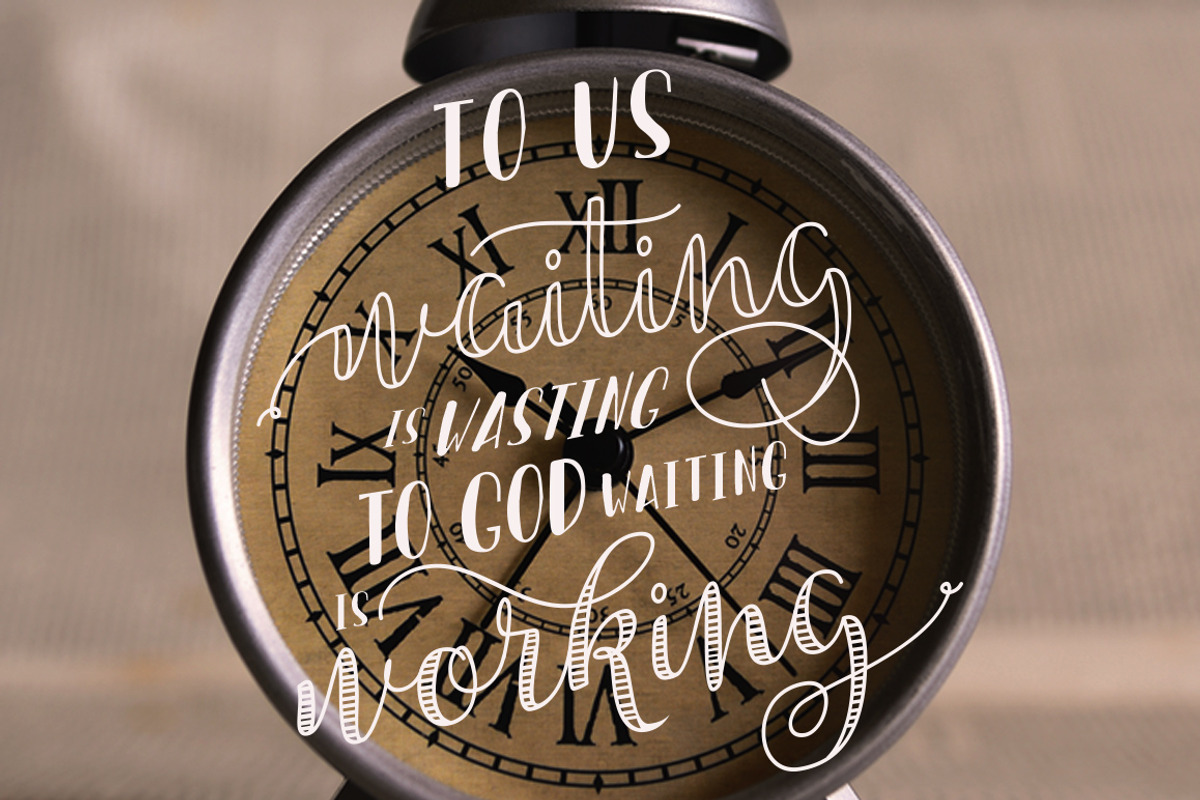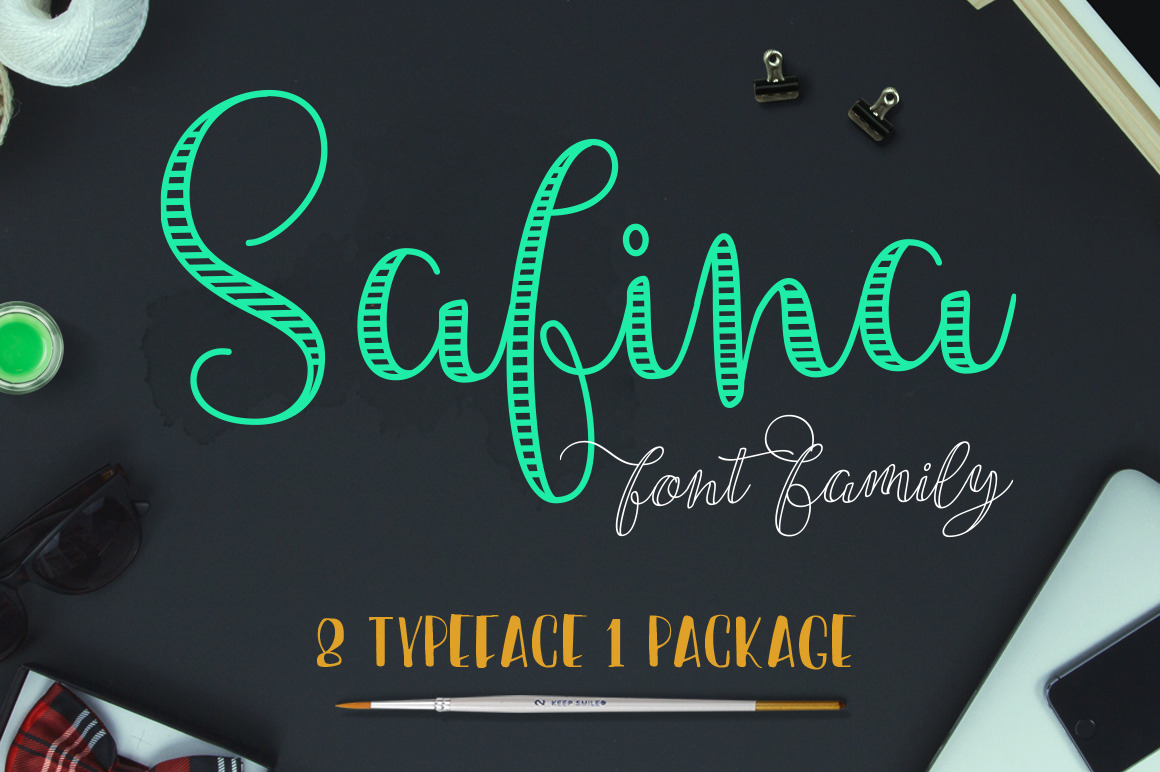
Safina Font Family
Hi everyone introduce my new font, Safina Font Family. Safina is a hand lettering typeface font a blend of beauty, softness and elegance. Accompanying effects add distinctive impression to the viewer. Safina made specifically for those who understand the tenderness of a woman.
Safina font consists of 4 family: Safina Script (regular and italic ), Safina Inline (regular and italic ), Safina Fancy ( Regular & italic ) and the last is Safina Book (regular and italic )
Everything is complete with uppercase, lowercase, numbers, punctuation, symbols, international language. Except Safina Book only uppercase, punctuation and number only. The others I will update if there is demand . :)
International glyphs support for : Albanian, Basque, Breton, Chamorro, Danish, Dutch, English, Faroese, Finnish, French, Frisian, Galician, German, Icelandic, Italian, Malagasy, Norwegian, Portuguese, Spanish, Swedish
Safina Font Family is suitable for weddings, invitations, greeting cards, quotes, posters, branding, name card, stationary, design title, blog header, art quote, typography art, modern envelope lettering or book design, happening style like handdrawn design or watercolor design theme, craft design, any DIY project, book title, wedding font, pop vintage design, or any purpose to make our art/design project look pretty and trendy.
Safina font family come complete with 402 glyphs, and most other glyphs is a variation which is parts of the OpenType features such as;
- Standard Ligatures,
- Contextual Alternates
- Stylistic alternates